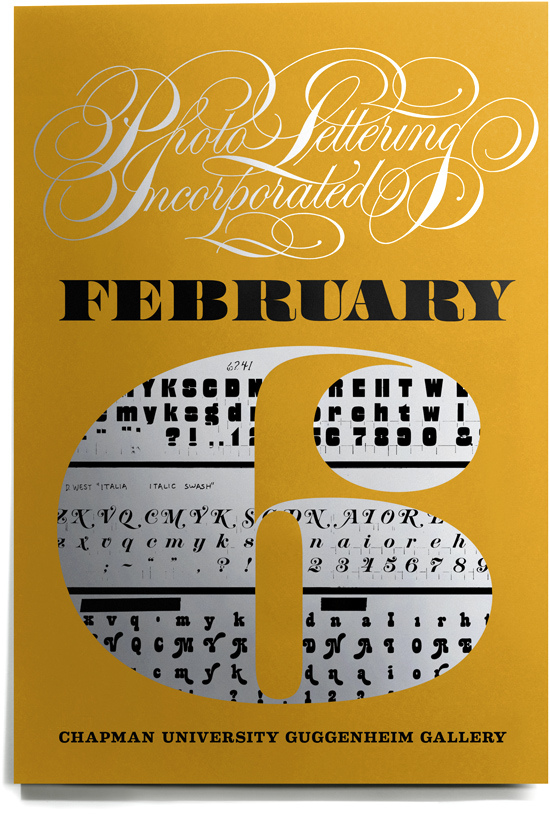
Fanatical Mechanical: Photo-Lettering and the Paste-Up Era
House Industries celebrates the craft of Photo-Lettering’s past while presenting it in the context of contemporary relevance. David Dodde’s prodigious hand-printed panels and substantial scrims mingle with custom lithographic layers and fascinating alphabetic fixtures by fanatical fabricators Marc Wiegers and Roger VanTill of Greenwood Studios. Sprinkled throughout the exhibit are carefully excavated and curated historical Photo-Lettering components including original films, rare specimen books and ceramic artifacts.